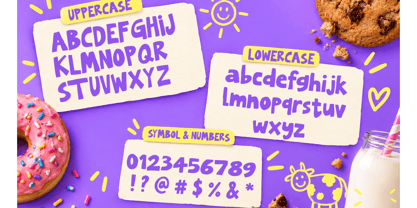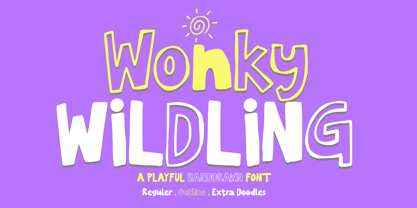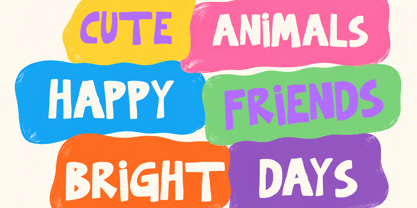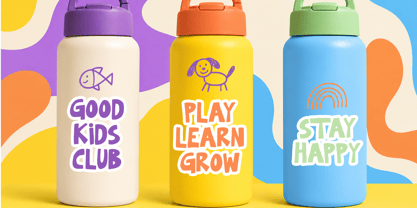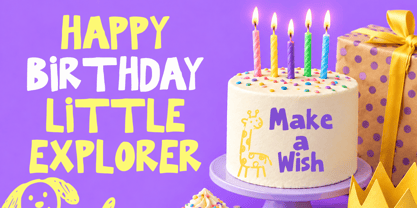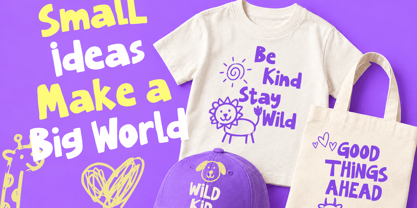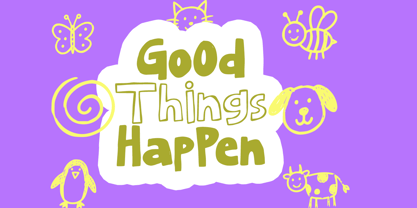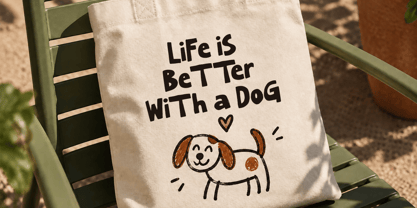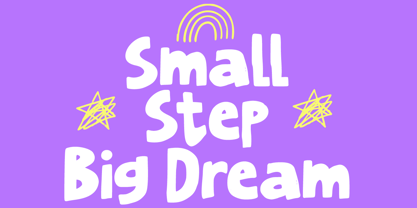
Wonky Wildlings
by Cocodesign
The Wonky Wildlings Font Family was designed by Muhammad Zaini and published by Cocodesign. Wonky Wildlings contains 3 styles and family package options. More about this family
WONKY WILDING is a whimsical hand-drawn display font brimming with personality, charm, and unique handmade character. Featuring irregular shapes, chunky letterforms, and delightful organic curves, this font infuses a cheerful and creative vibe into every design. Crafted to appear naturally imperfect and authentically handmade, Wonky Wilding is ideal for projects requiring a fun, youthful, and expressive touch. The font offers both Regular and Outline styles, along with a collection of extra doodles to enhance your designs and make them even more playful. Perfect for branding, web design, and editorial projects, this font family stands out with its distinctive style and engaging features.
Designers: Muhammad Zaini
Foundry: Cocodesign
Wonky Wildlings